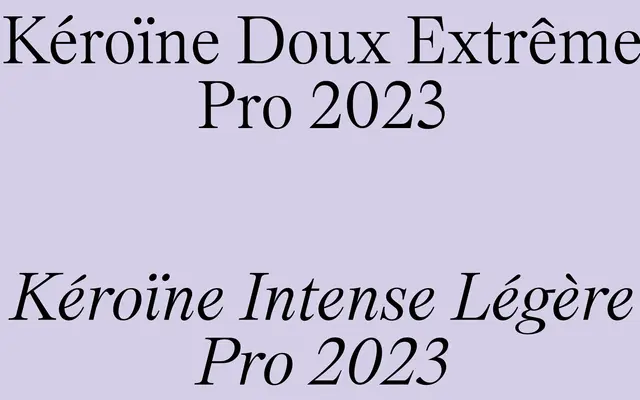
Kéroïne PRO
Charlotte Rohde · Charlotte Rohde
A high-contrast display serif with elongated, flowing letterforms designed to evoke luxury skincare and beauty aesthetics.
Two styles — Doux Extreme and Intense Legere — offer distinct moods within the same delicate visual language, both built around thin, graceful strokes and generous ascenders. The glyph set is broad, covering Latin Extended and Vietnamese alongside oldstyle figures, standard ligatures and stylistic alternates. Suited to editorial fashion work, packaging and branding where an ethereal, feminine tone is needed.
Kéroïne PRO features elongated forms, thin graceful strokes and high contrast typical of display serifs with a fashion or luxury orientation, closer to didone in spirit with flowing, refined letterforms.